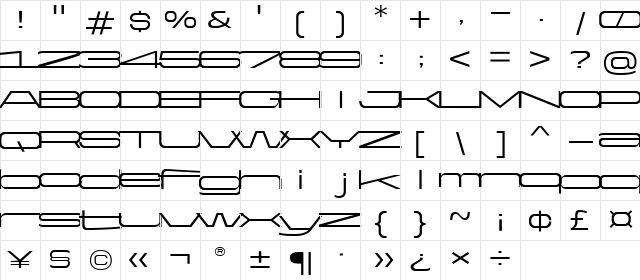
Yapari Exp Regular
Foundry: Power Type￿ Foundry
Designer: Teguh Arief
Design Context for Yapari Exp
Yapari Exp is a composed and adaptable typeface that performs quietly and consistently across a wide range of design contexts.